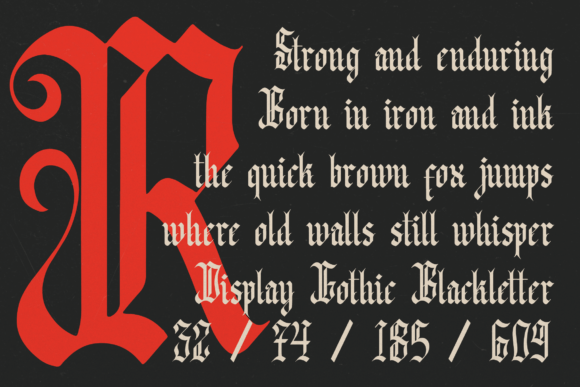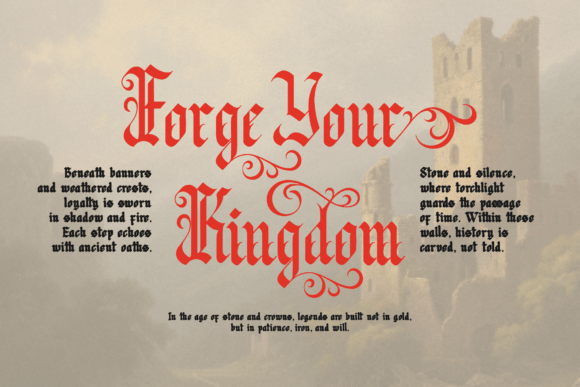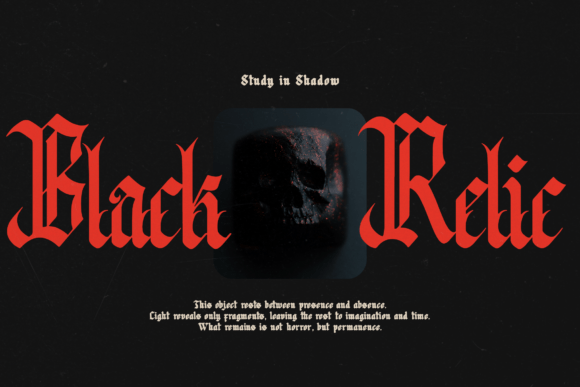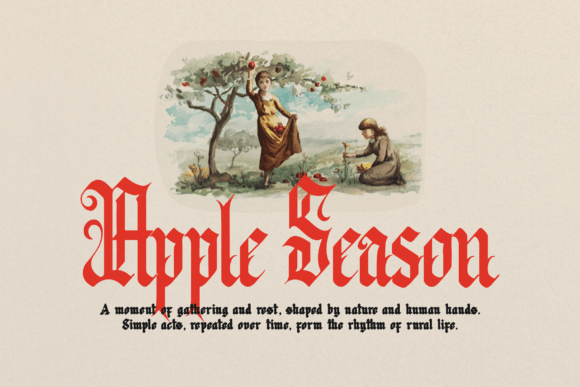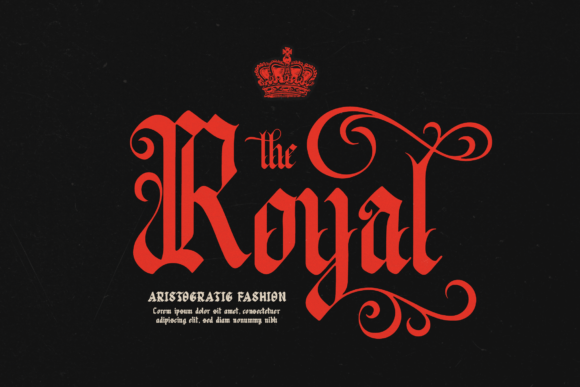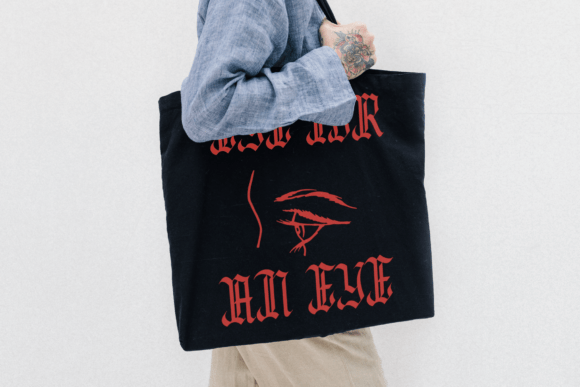
Introduction to Pelysska Font
Transport your designs to a realm of dark elegance and medieval grandeur with the Pelysska font, a masterful display gothic blackletter that commands attention.
This Pelysska typeface reimagines traditional calligraphic structures with a modern, dramatic flair, featuring razor-sharp serifs and elaborate, sweeping swashes that dance across the baseline It is the definitive choice for historical fiction book covers, high-fantasy gaming interfaces, and artisanal branding for craft breweries or luxury spirits.
Key Features of Pelysska Font